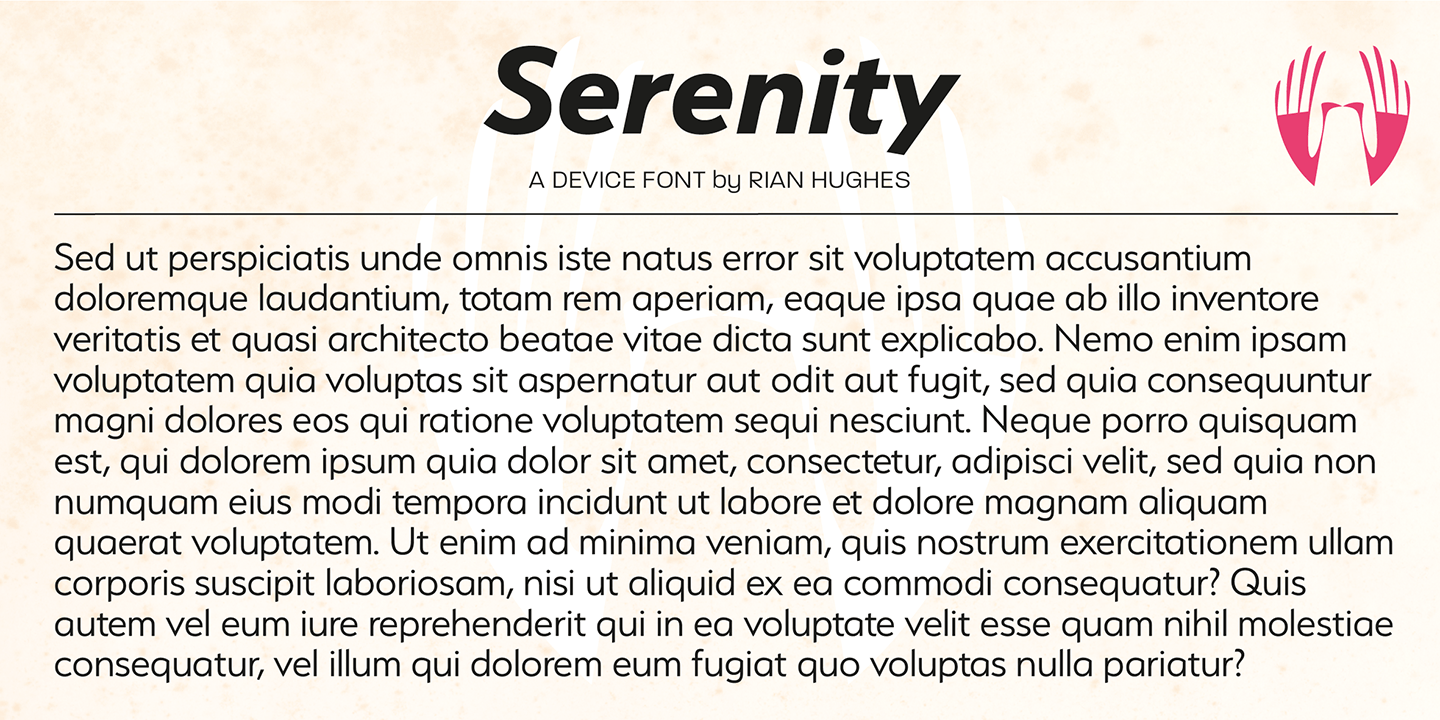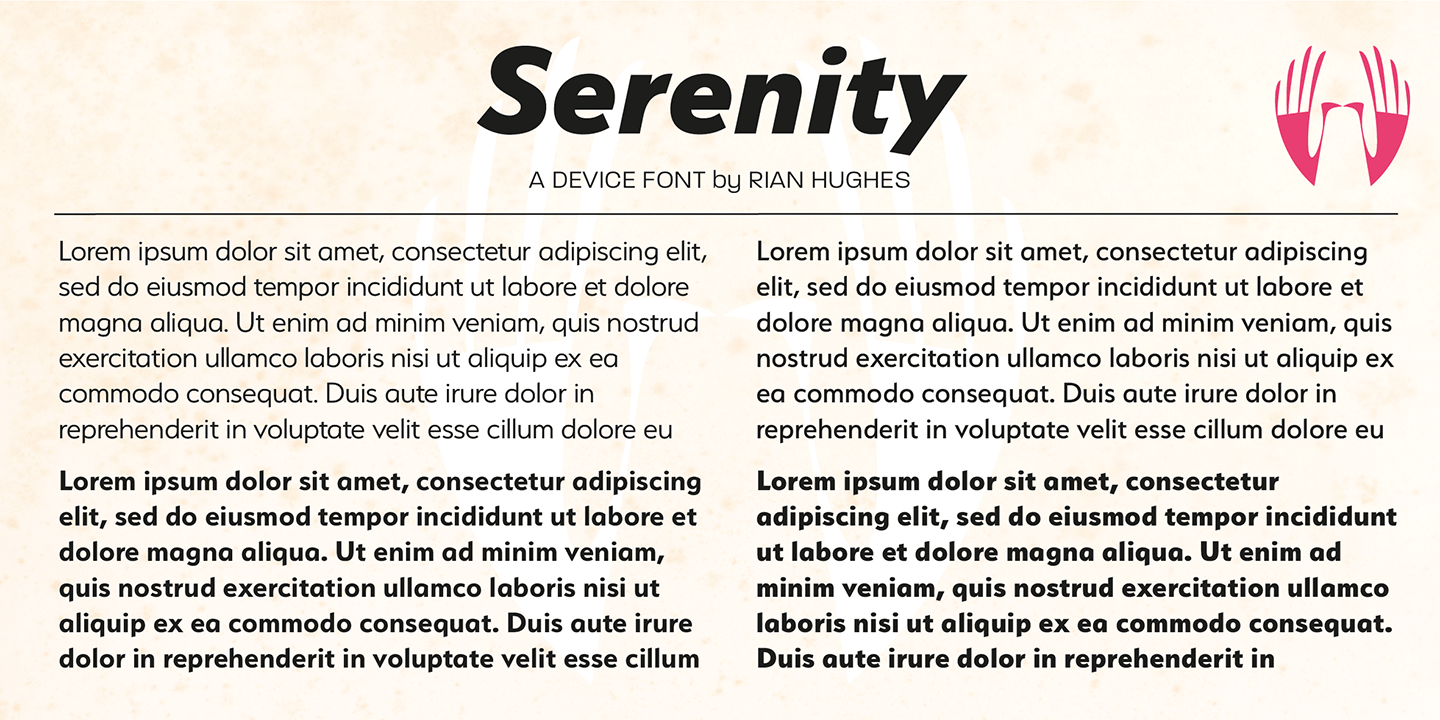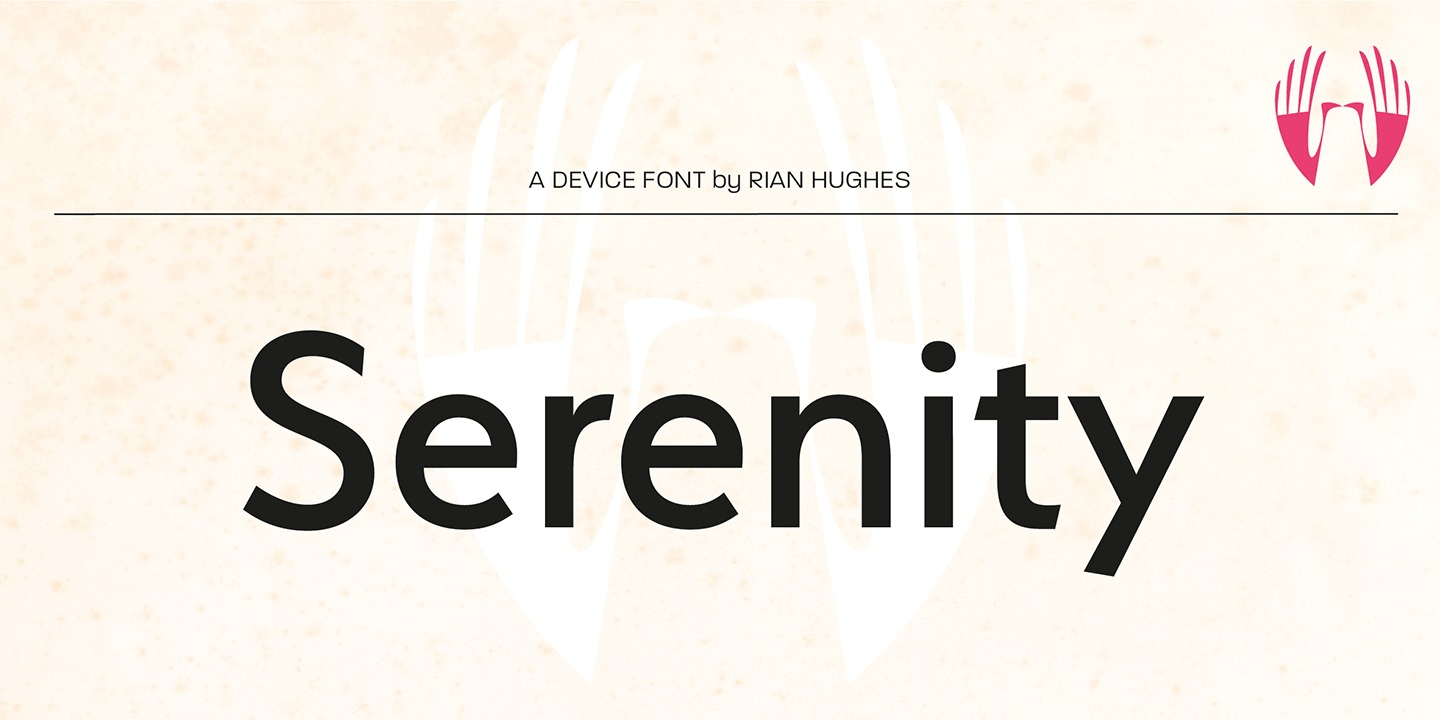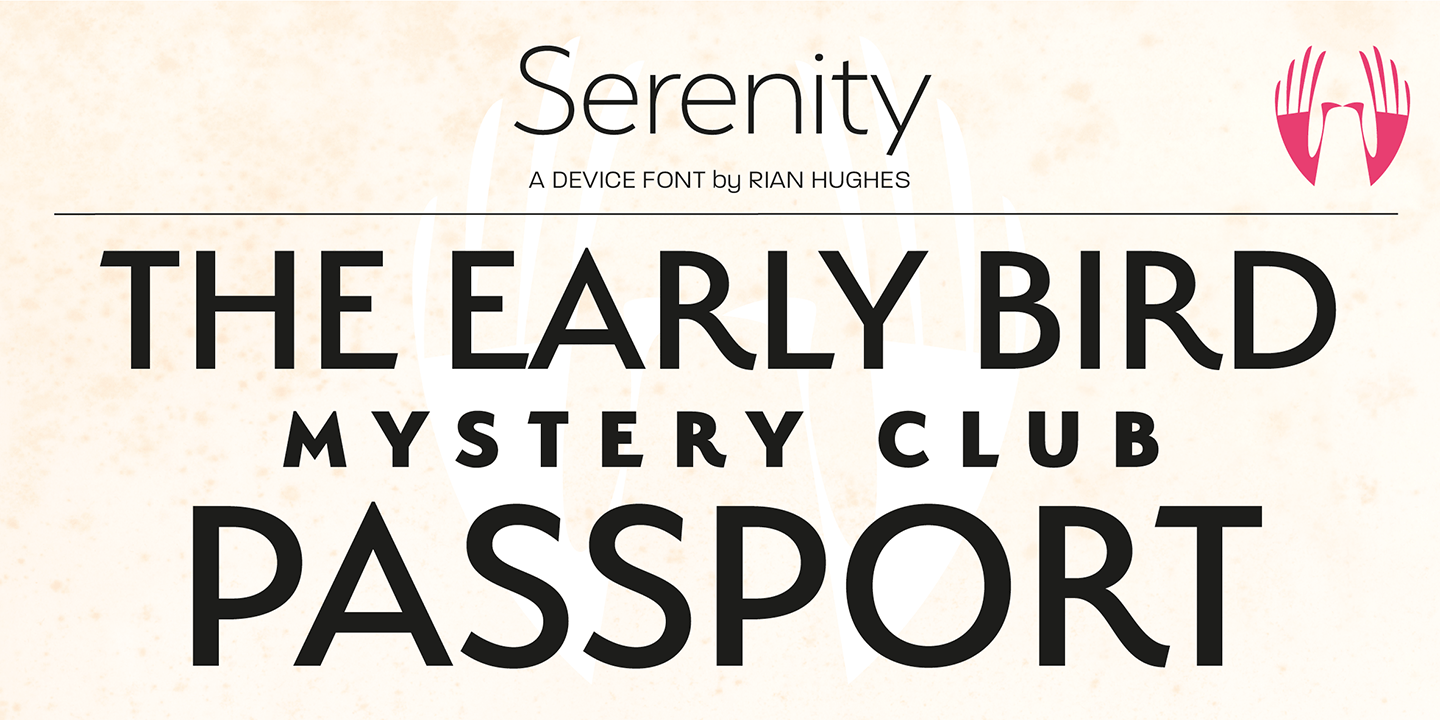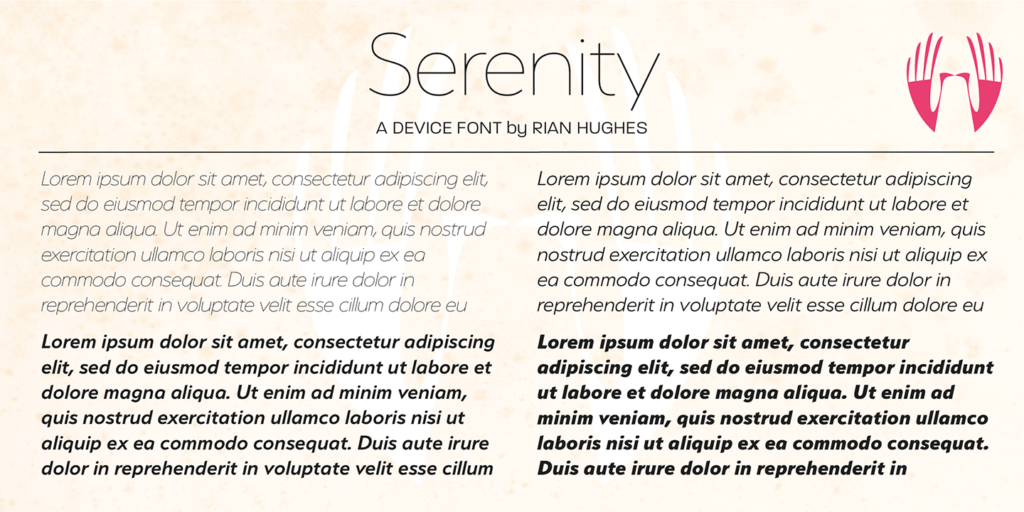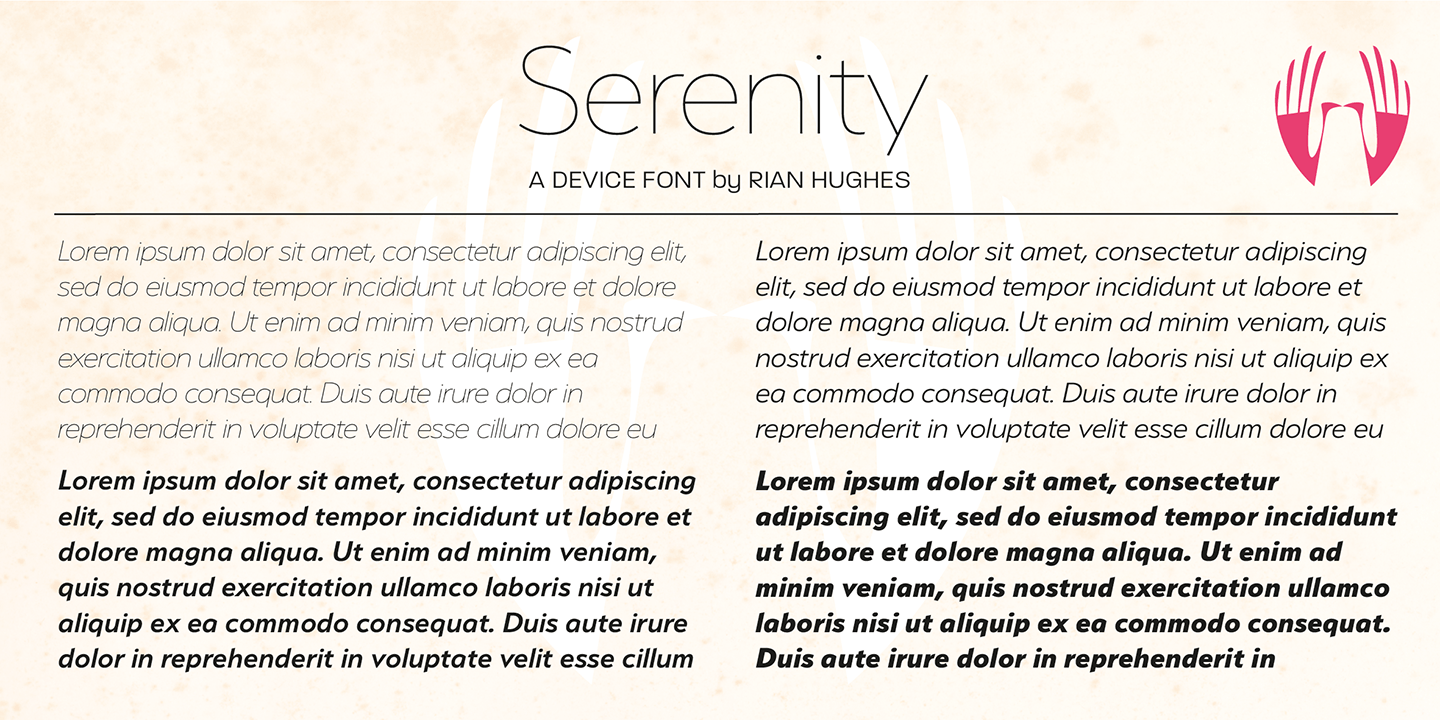
Serenity
About Serenity
A versatile and elegant sans serif with a hint of Futura and a dash of Gill, but entirely its own design. Clear and legible in small sizes, refined and authoritative in larger sizes, Serenity is perfect for corporations, institutions, museums, galleries,…